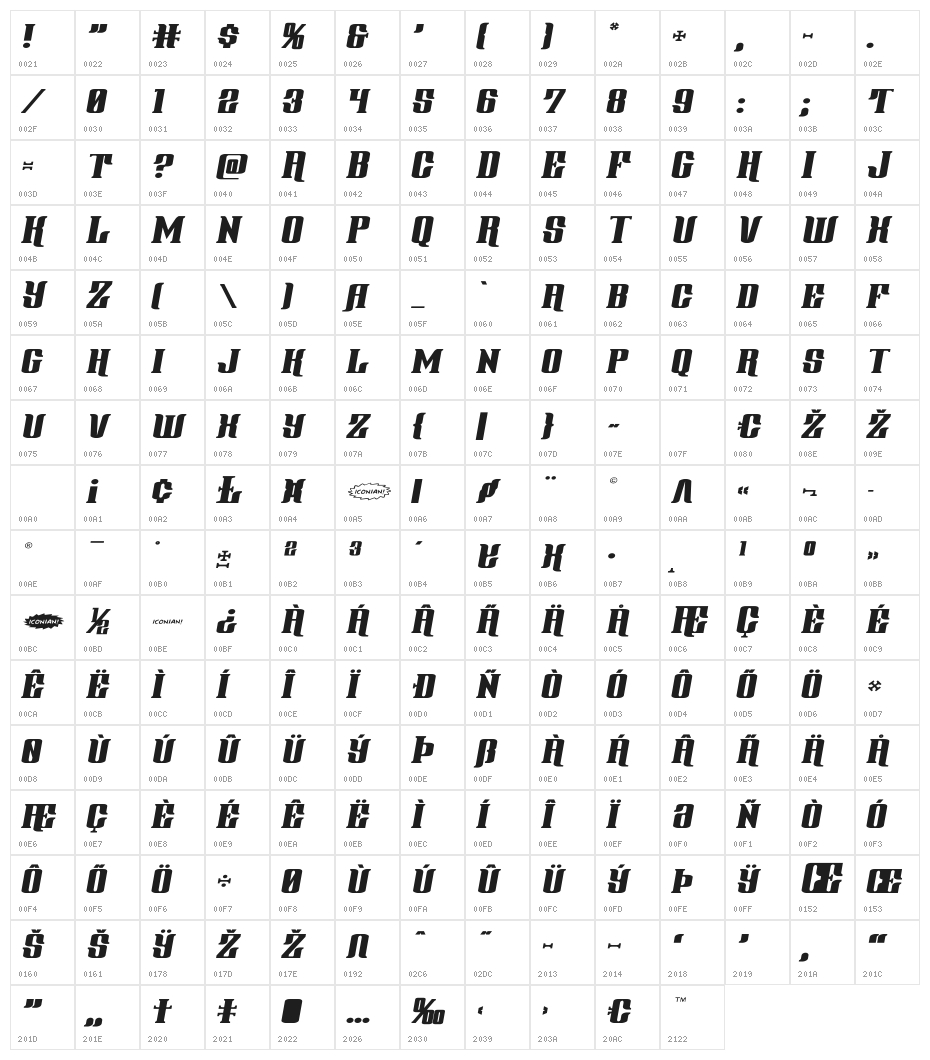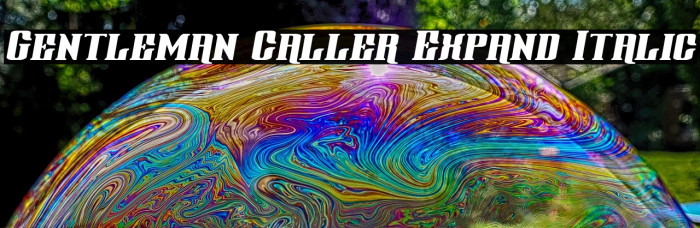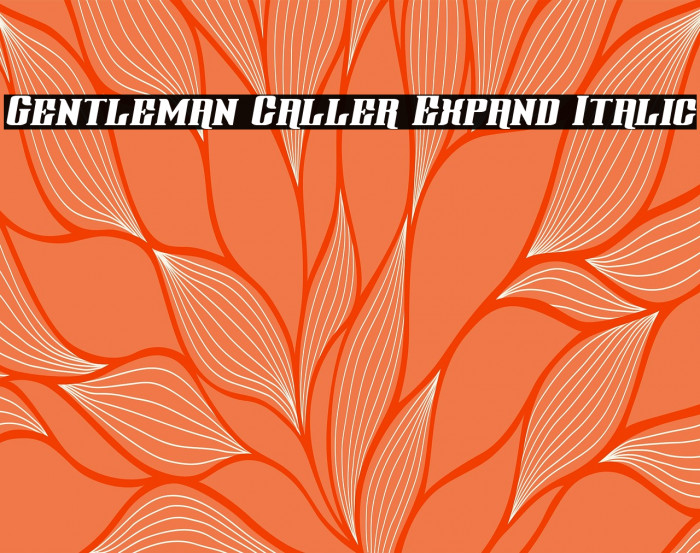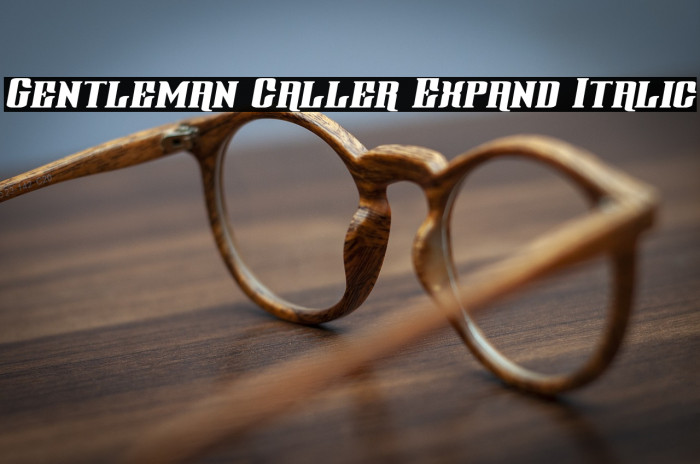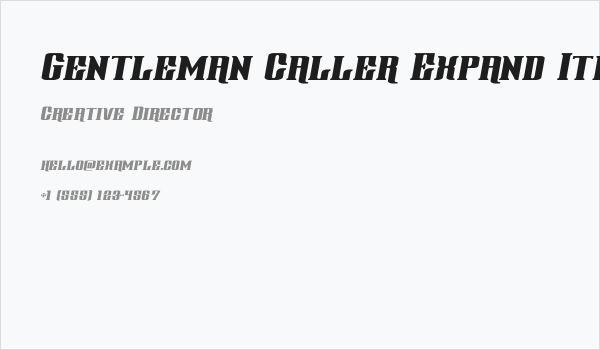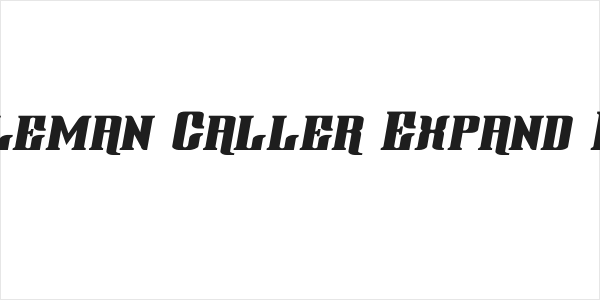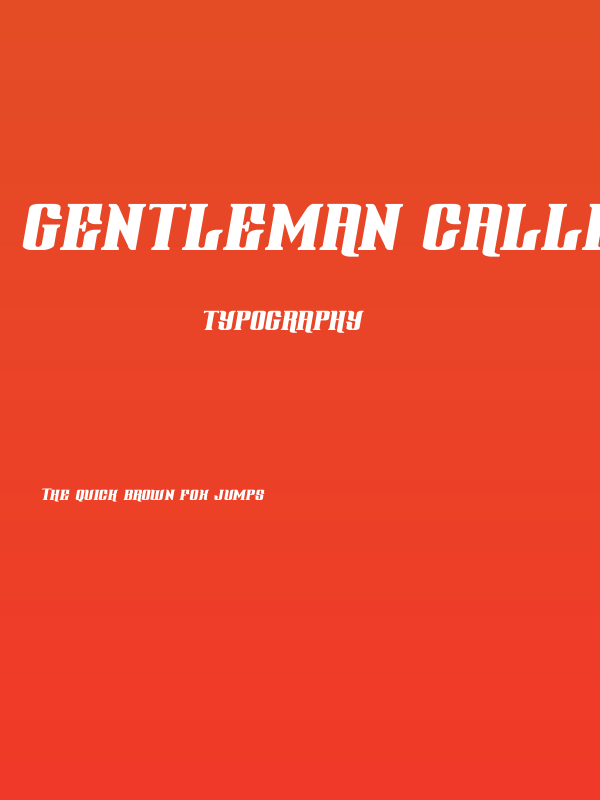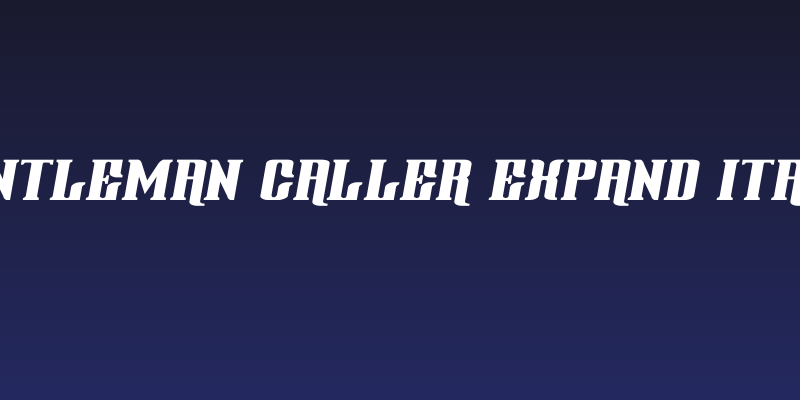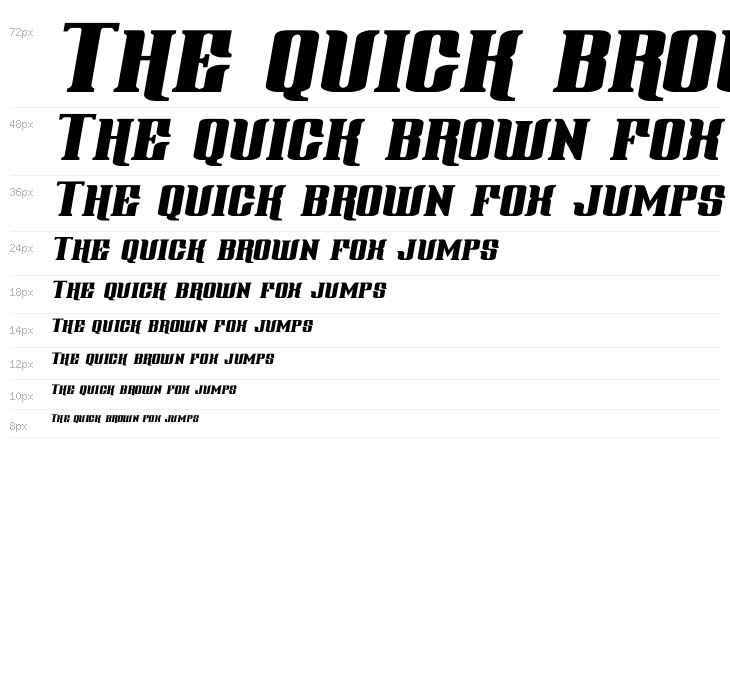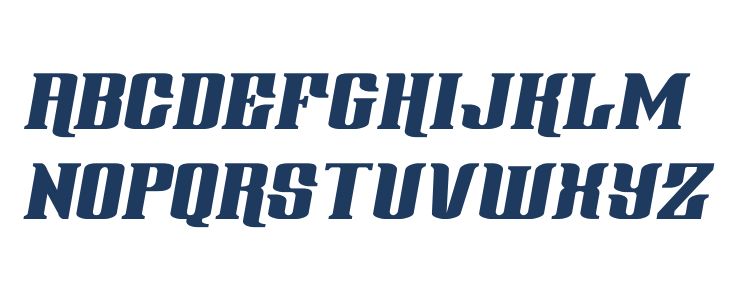
Gentleman Caller Expand Italic Font
Gentleman Caller Expand Italic Description
This font features a bold and dynamic style with an italic slant, giving it a sense of movement and energy. The characters are expanded, providing a wide stance that enhances readability while maintaining a strong visual impact. The strokes are thick, with a high contrast between the thick and thin parts, adding to its dramatic appearance. The design is reminiscent of vintage signage or sports team logos, with a modern twist that makes it suitable for contemporary use. The uppercase and lowercase letters are consistent in style, and the numerals and special characters complement the overall aesthetic.
| Overall Style | Vintage, Modern |
| Proposed Projects | Ideal for sports branding, vintage-themed posters, dynamic headlines, and logo design. |